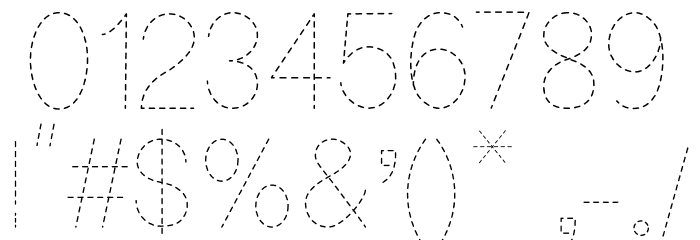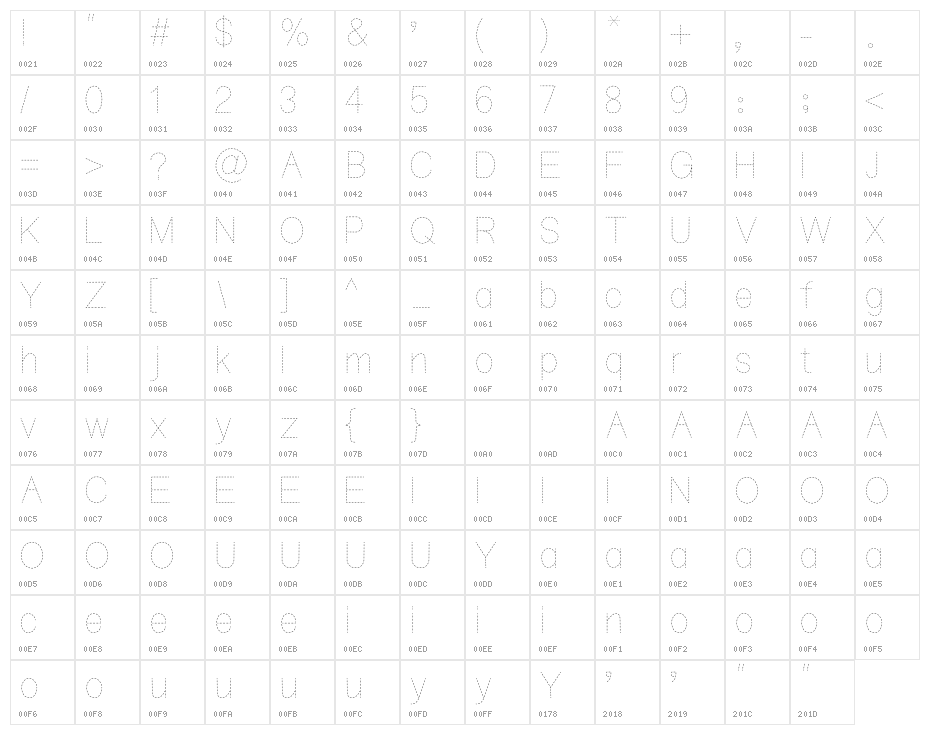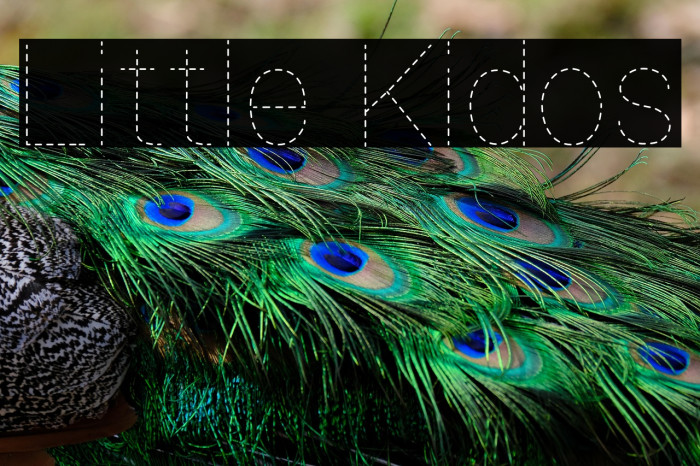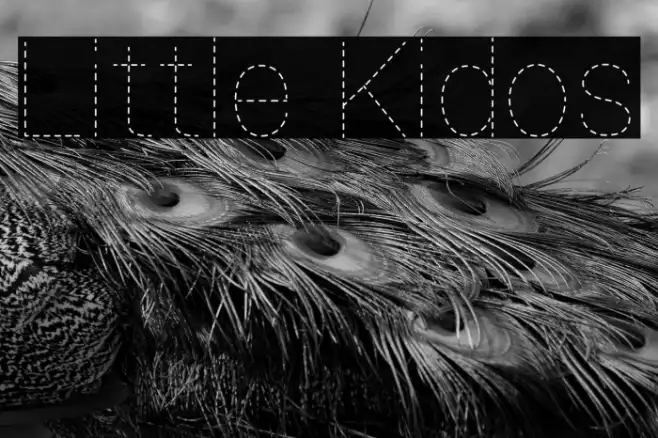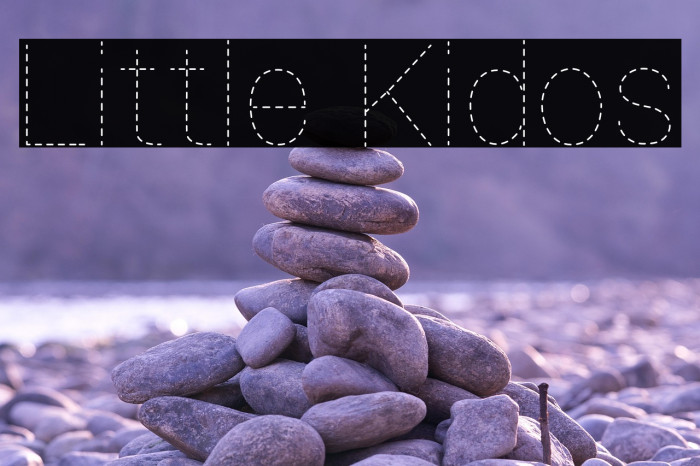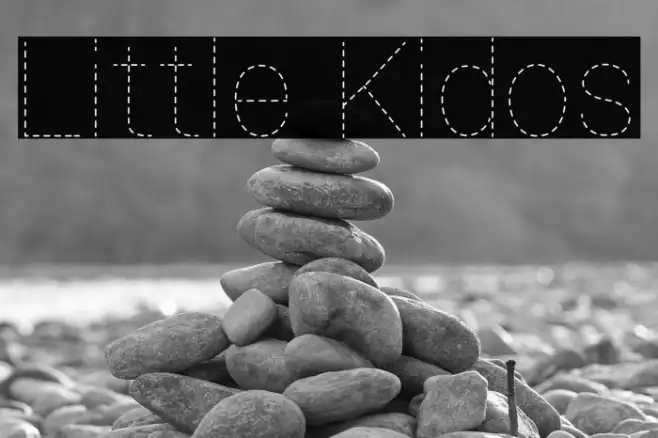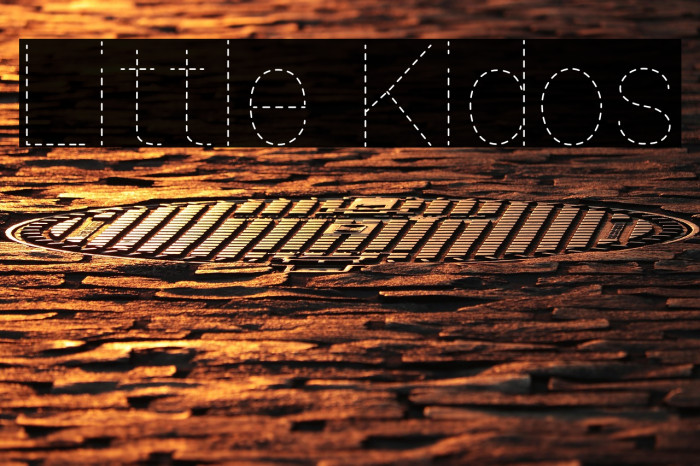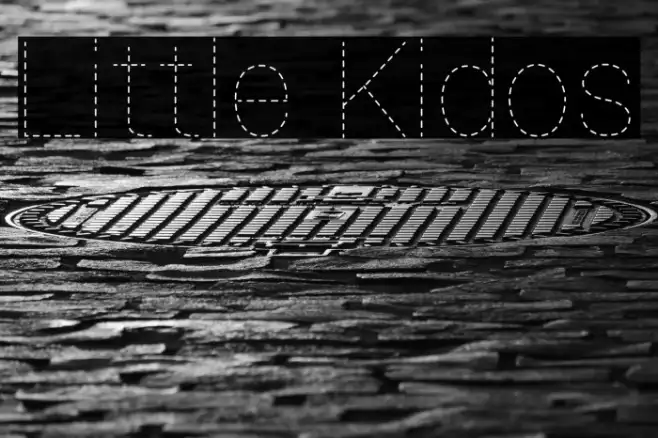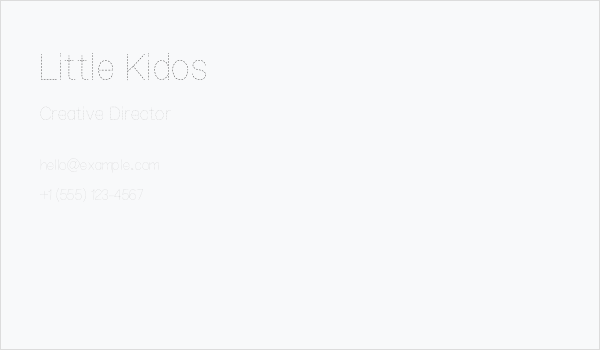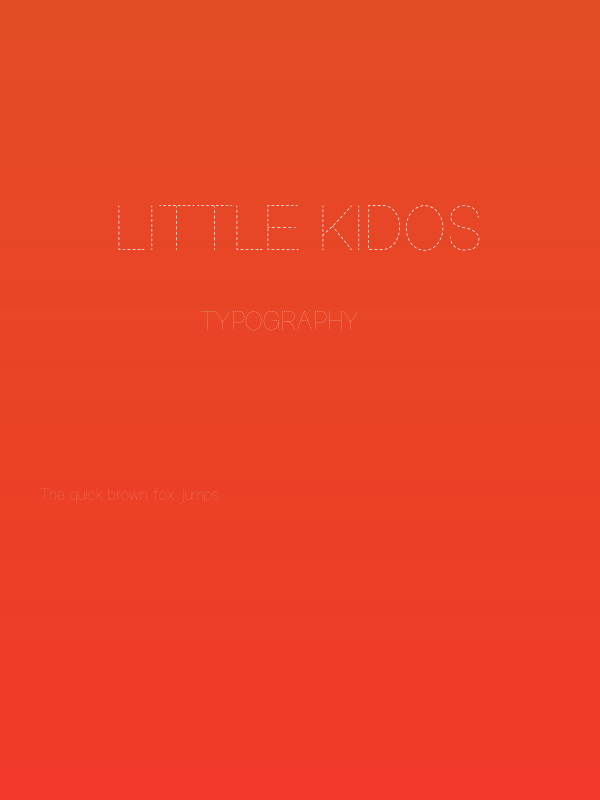
Little Kidos Font
Little Kidos Description
This playful and educational font features a dotted line style, reminiscent of handwriting practice sheets used in early childhood education. Each character is composed of evenly spaced dashes, creating a clear and approachable appearance. The uppercase and lowercase letters maintain a consistent height and width, ensuring readability and uniformity. Numbers and special characters follow the same dotted pattern, making them easily recognizable. This font is ideal for educational materials, children's books, and any project aimed at young learners.
| Overall Style | Playful, Educational |
| Use Case | Educational materials, Children's books, Learning apps |
| Proposed Projects | Ideal for educational worksheets, children's books, learning apps, and playful branding. |